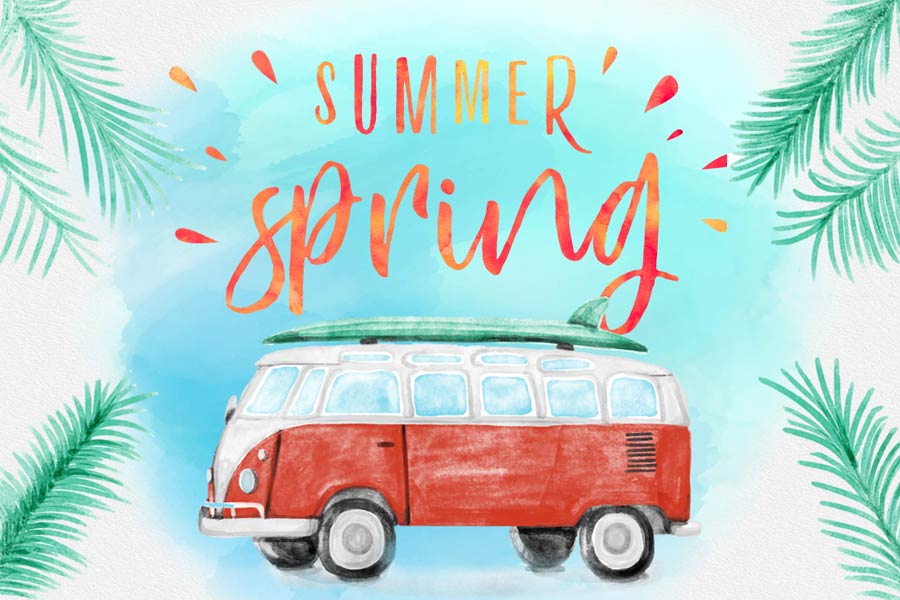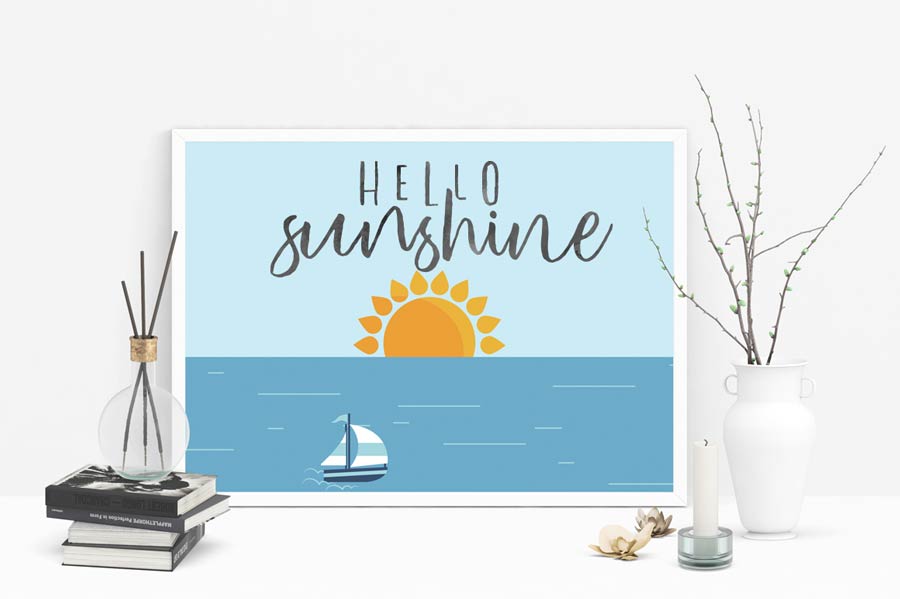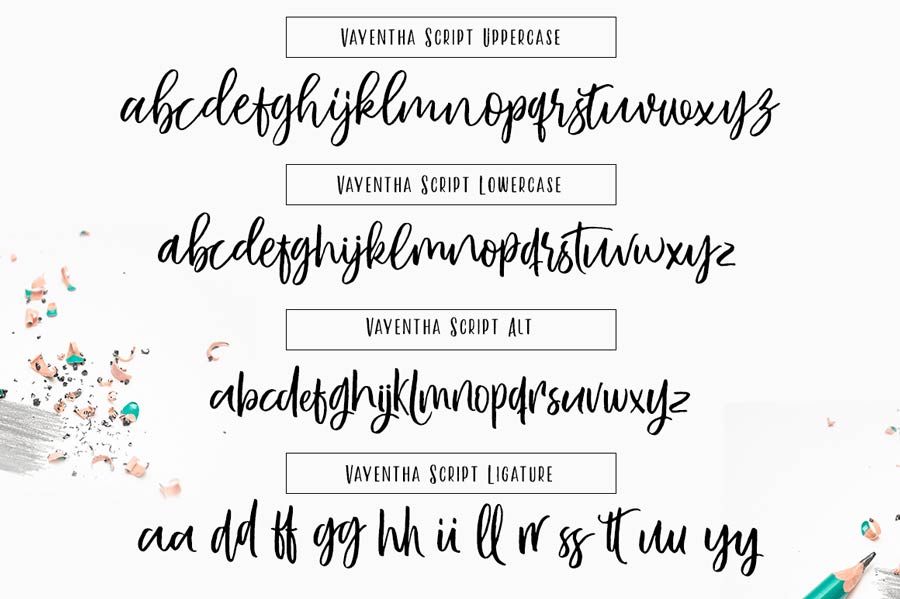
Vayentha is a free hand drawn font that comes with two styles: Vayentha Sans and Script. The Sans version has both uppercase and small caps as lowercase, which complements well with the Script version. By combining them, it can produce summer-like, emitting positive vibes to the design. The free version comes with 94 characters, while the full version supports a lot for languages.
- Designer: Ryan Prasetya
- Styles: 2